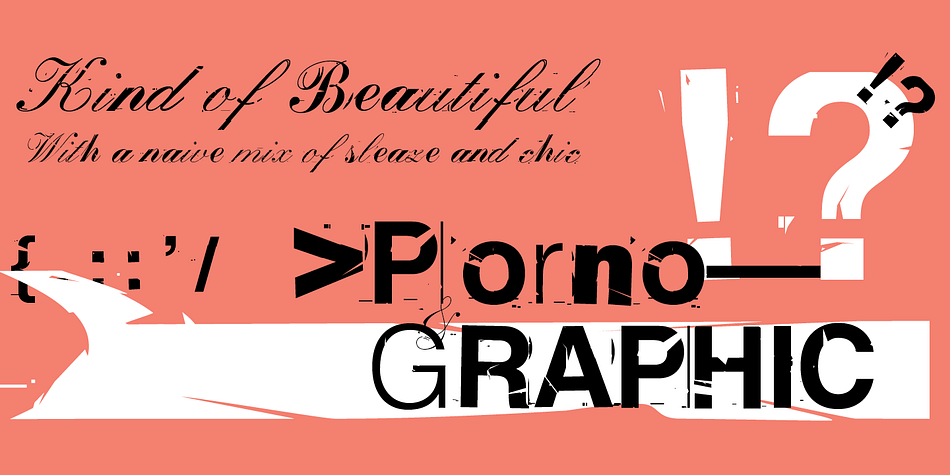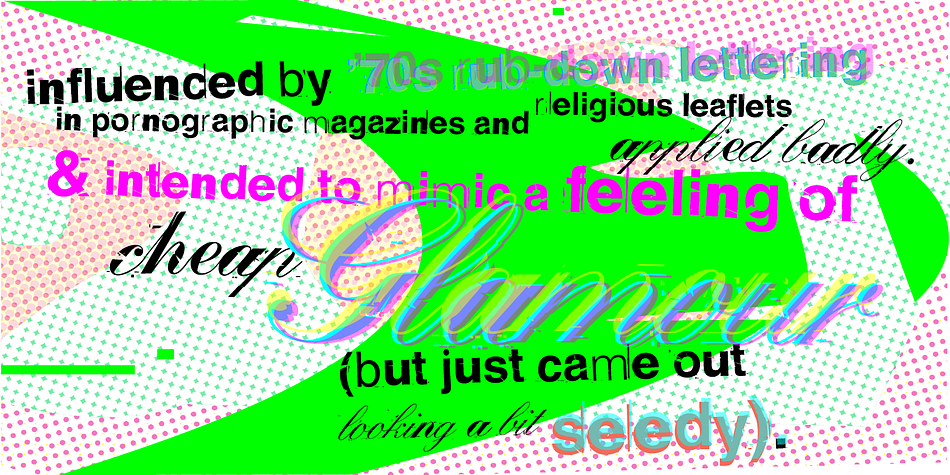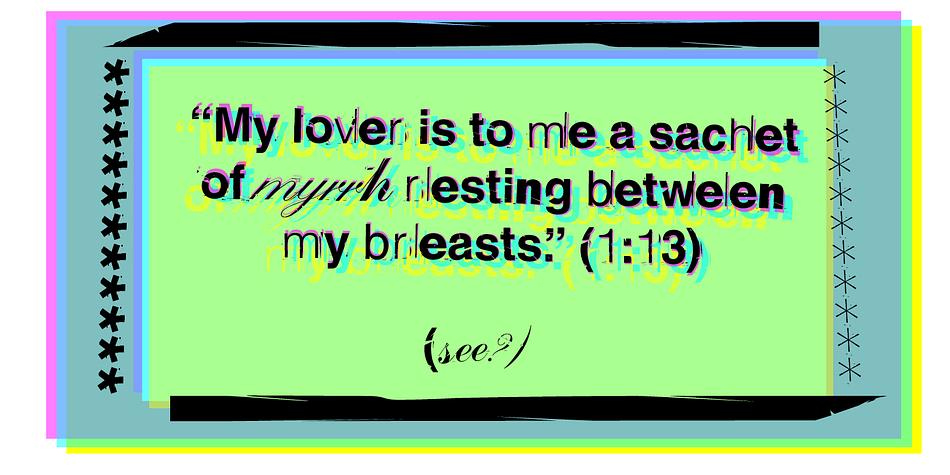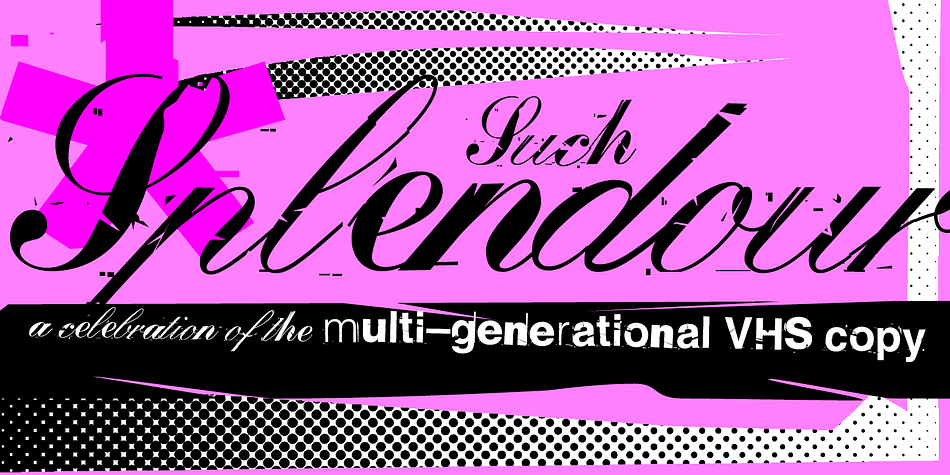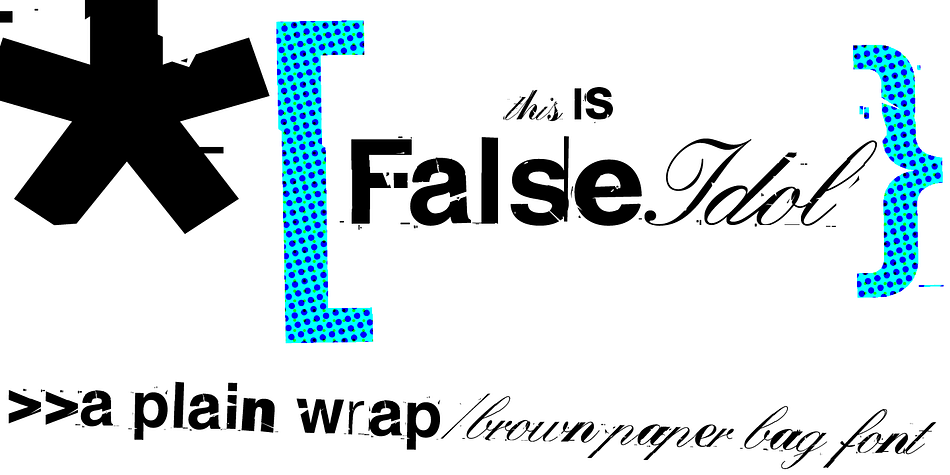
Designed by Jonathan Barnbrook, False Idol is a grunge and script font family. This typeface has two styles and was published by Barnbrook Fonts.
Based upon bad rub-down lettering from 1970s pornographic magazines and home-made religious leaflets, False Idol’s letterforms were intended to mimic a feeling of cheap glamour but just became seedy. Somehow, an alluring beauty emerges from this naive mix of sleaze and chic which has made False Idol one of our most popular fonts.
Styles | Grunge, Script |
Designer | Jonathan Barnbrook |